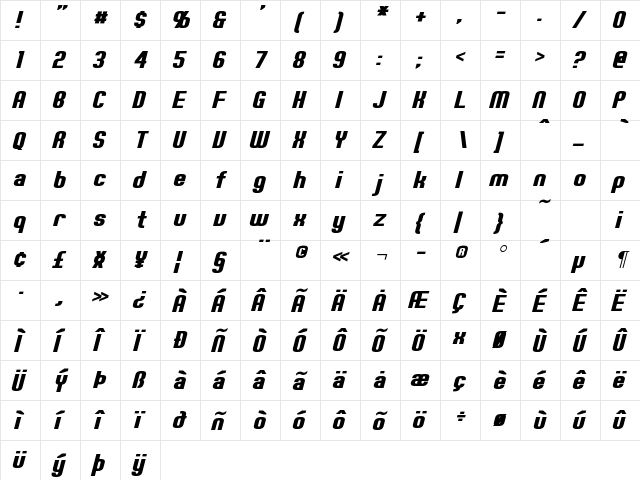
Erte Italic
| Foundry | Neale Davidson |
| Designer | Neale Davidson |
Design Context for Erte Typeface
Erte takes a measured approach to typography — its balanced proportions and neutral character make it a reliable workhorse for both digital and print work. The dynamic lean of this cut emphasises speed and emphasis in any layout.
Pro Tip: Use Erte for emphasis, pull quotes, and subheadings where its slanted energy can add rhythm to the layout.